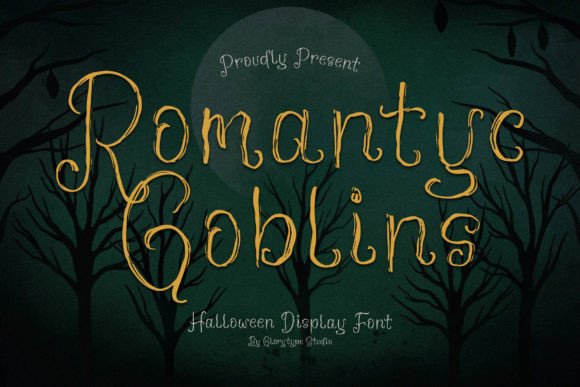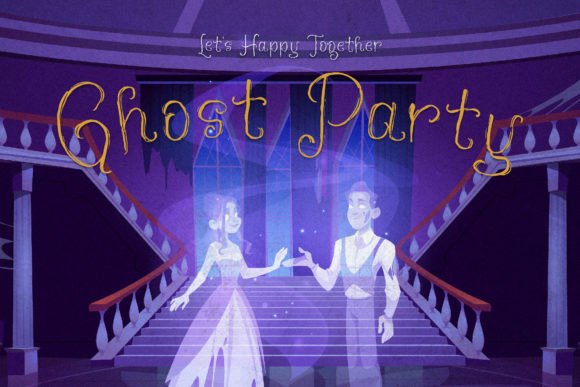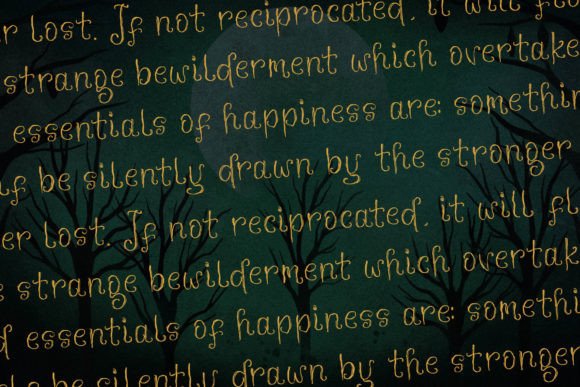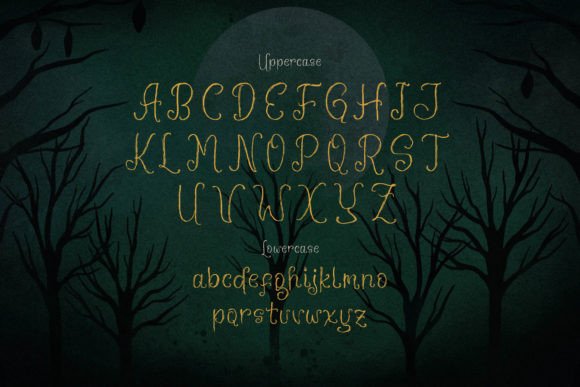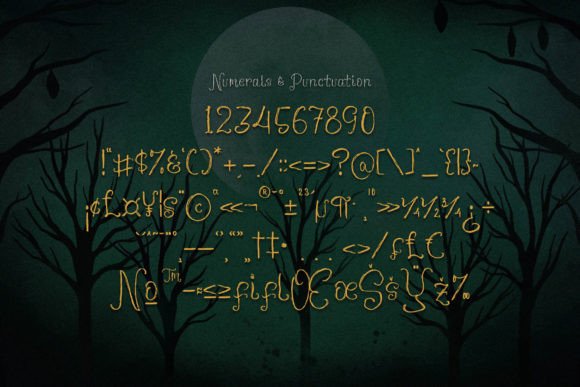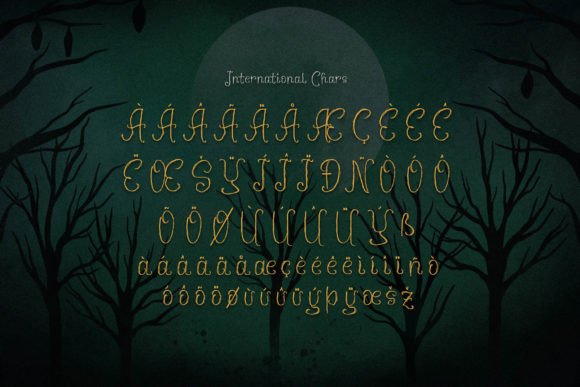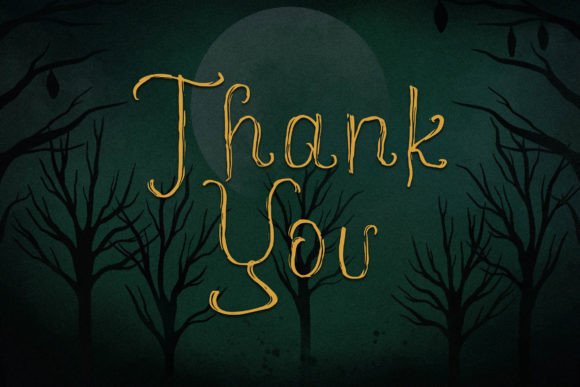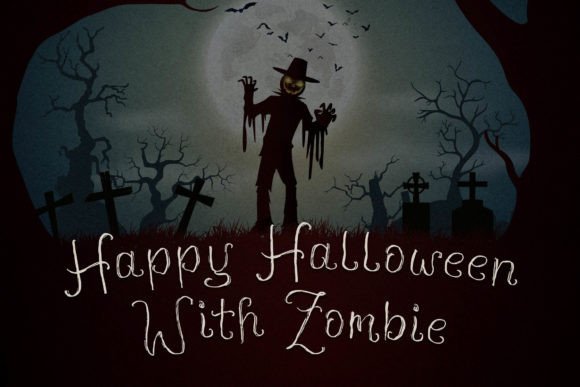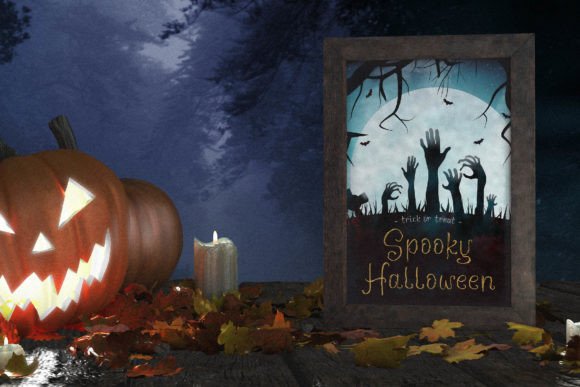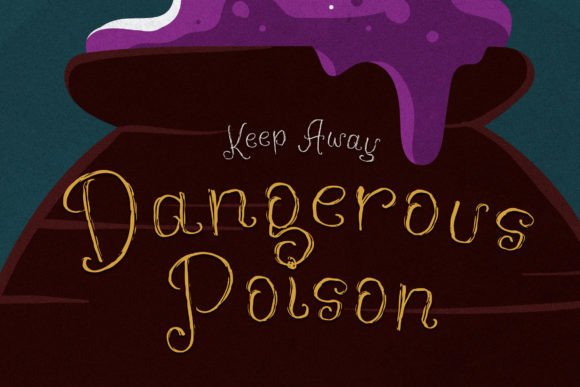
Romantyc Goblins Font
About Romantyc Goblins Font
**Romantyc Goblins** is a Halloween-themed script font designed to infuse a sense of spookiness and playfulness into your creative projects. Whether you’re working on Halloween-themed logos, branding projects, homeware designs, product packaging, mugs, quotes, posters, shopping bags, t-shirts, book covers, name cards, invitation cards, greeting cards, labels, photography, watermarks, special events, or any other projects that require a touch of whimsical script typography, **Romantyc Goblins** brings a distinctive and beautiful script taste to the table.
The font’s playful and Halloween-inspired style adds a sense of fun and character to your designs. It captures the spirit of the season with its quirky letterforms and unique aesthetic. **Romantyc Goblins** is perfect for creating a festive atmosphere and giving your projects a distinctive flair that sets them apart.
**Romantyc Goblins** is versatile and suitable for various design contexts. Whether you’re using it for print or digital projects, it maintains its playful and spooky character, ensuring that your Halloween-themed designs effectively convey the desired mood and message.
What makes **Romantyc Goblins** special is its ability to inject a sense of Halloween enchantment into your designs. It invites your audience to immerse themselves in the whimsical and spooky world you create, whether it’s for a holiday-themed event or a fun project that celebrates the spirit of Halloween. With **Romantyc Goblins** as part of your creative toolkit, you have the means to craft designs that capture the magic of the season.
In conclusion, **Romantyc Goblins** is a delightful Halloween script font that adds a playful and spooky touch to your projects. Embrace its whimsical style, and let it inspire you to create designs that evoke the enchantment and joy of Halloween. With **Romantyc Goblins** at your disposal, your creative possibilities are expansive, enabling you to craft engaging and memorable works of art through its fun and distinctive typography.